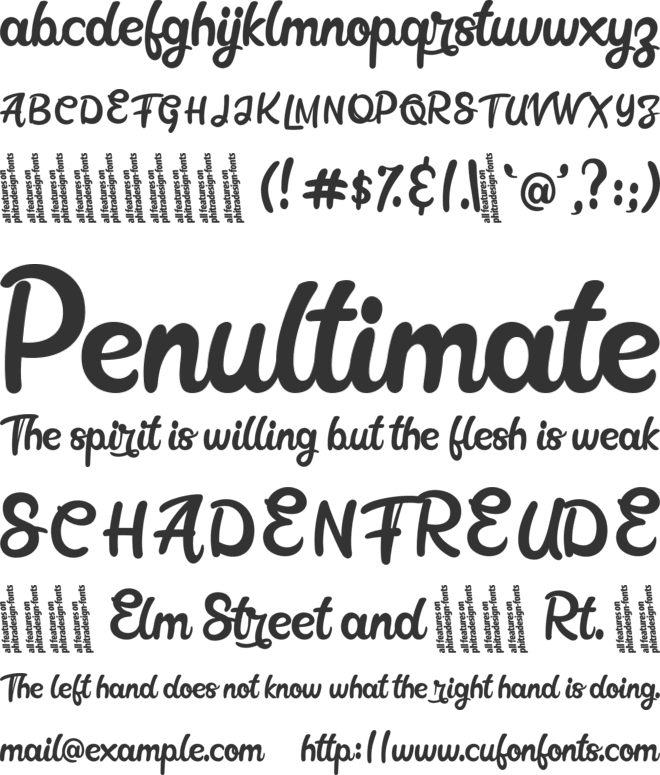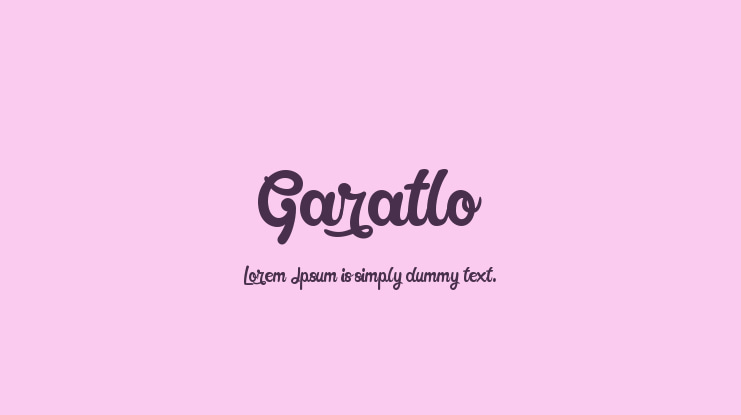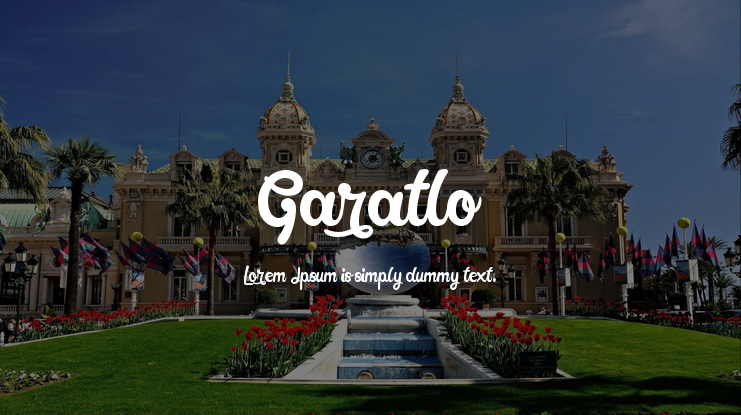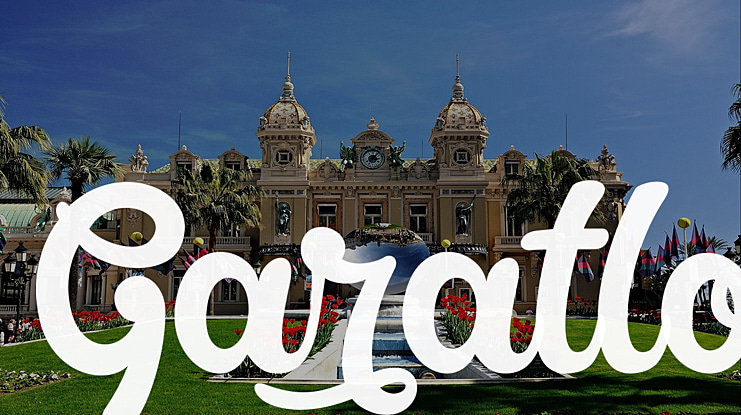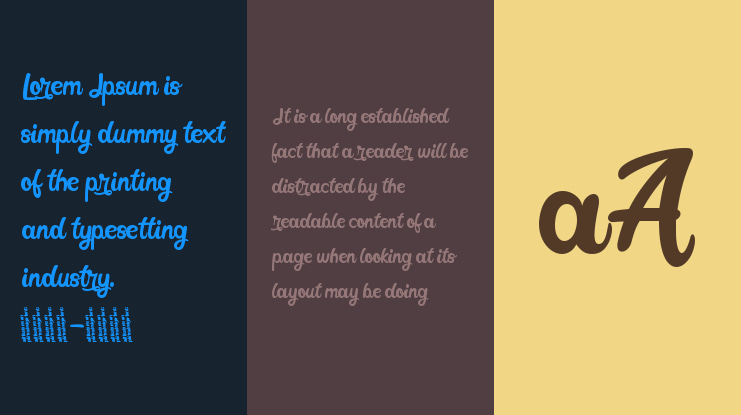
Garatlo Font
Our new script font is available! Garatlo has a very modern look and is perfect for any kind of logo, presentation, headline or other stuff. You can also try the alternative letters to add some personal touch.
Garatlo font preview
Garatlo Demo font